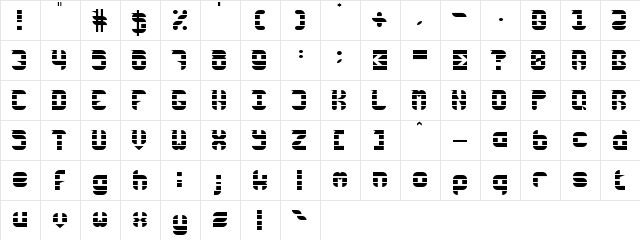
Rubber Down Regular
| Designer | peps1992 |
Design Context for Rubber Down Typeface
Rubber Down is a composed and adaptable typeface that performs quietly and consistently across a wide range of design contexts.